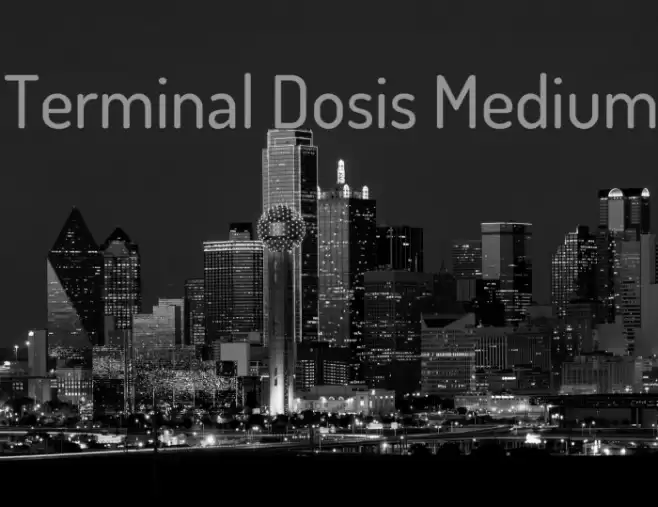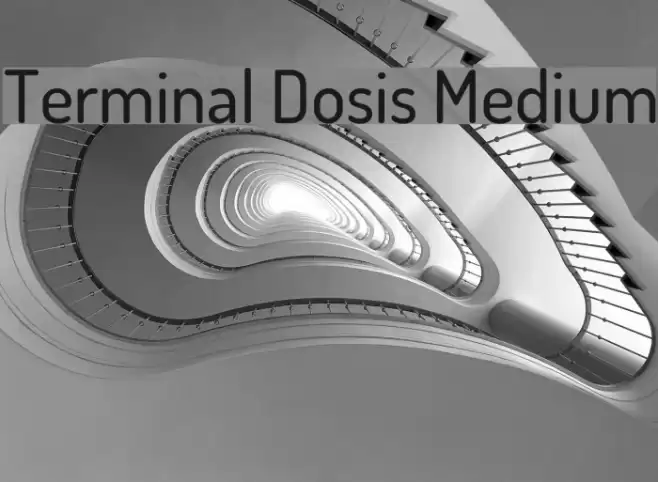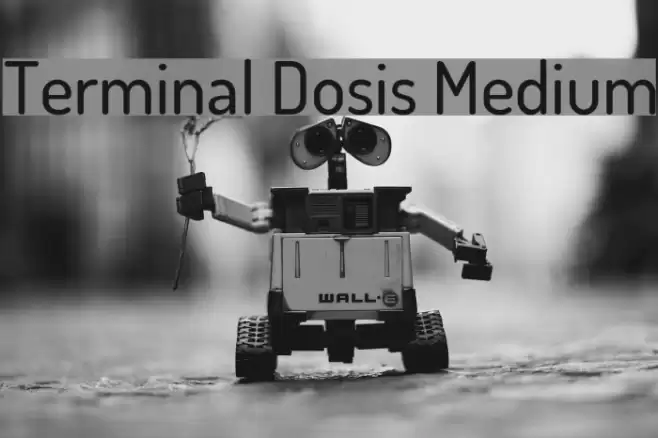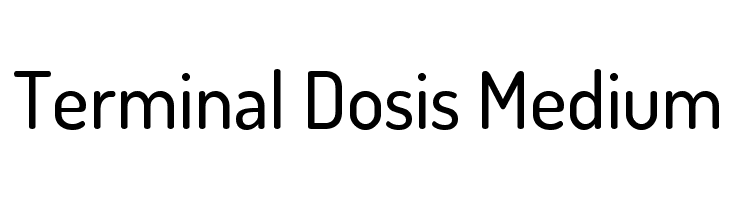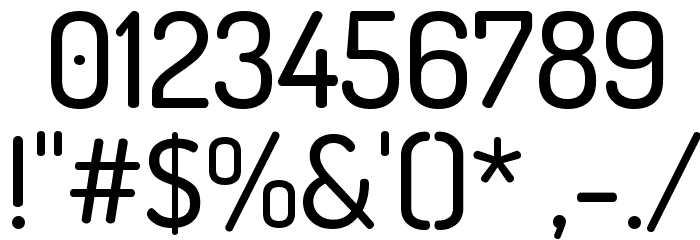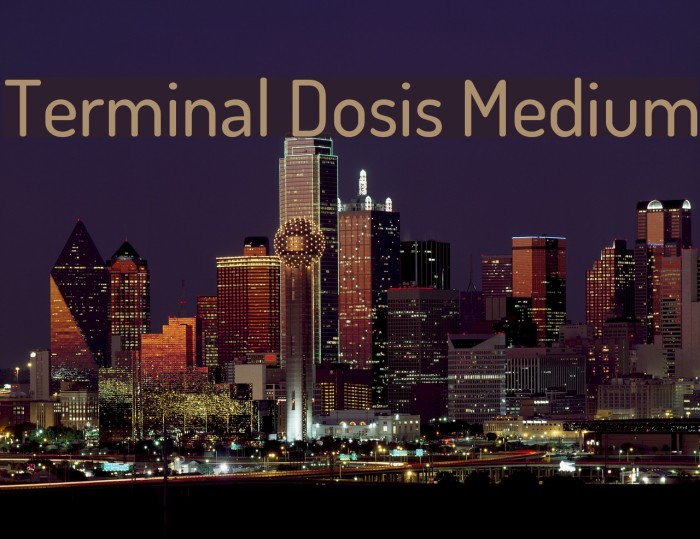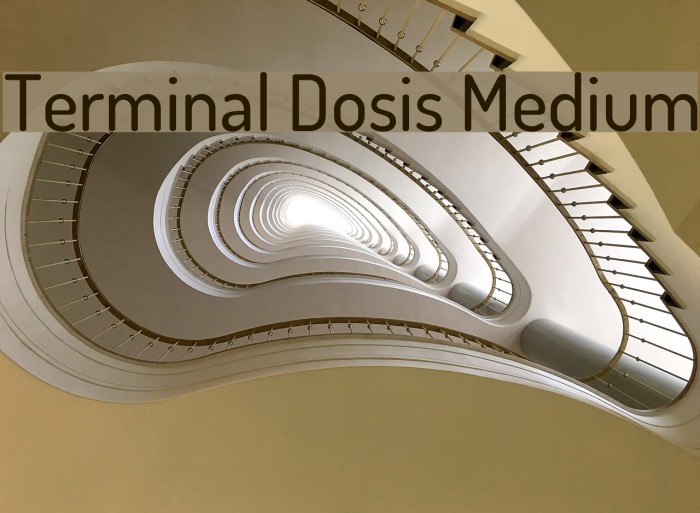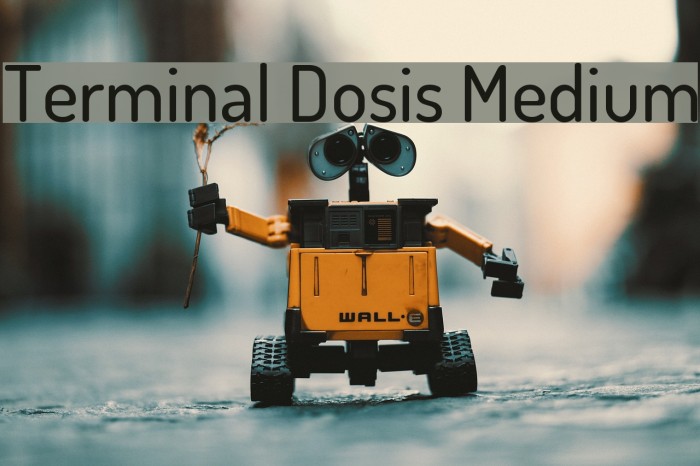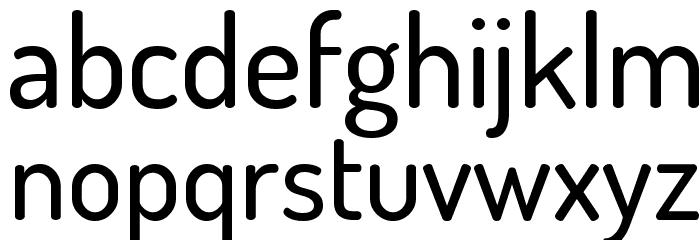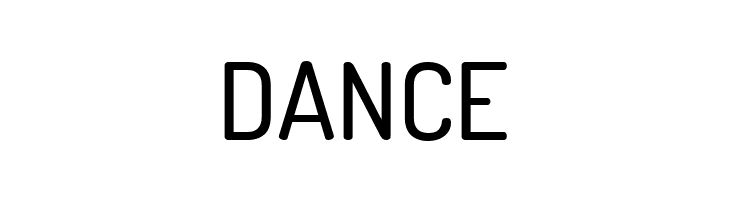
Terminal Dosis Medium
This font features a clean, rounded sans-serif style with a modern and friendly appearance. The characters are evenly spaced with a consistent stroke width, giving it a balanced and harmonious look. The rounded edges soften the overall feel, making it approachable and versatile for various design needs. The font maintains clarity and readability across different sizes, making it suitable for both digital and print media. Its geometric shapes and smooth curves contribute to a contemporary aesthetic, ideal for projects that require a fresh and inviting tone.
A modern, rounded sans-serif font with a clean and friendly appearance.
- Proposed Projects: Ideal for branding, web design, user interfaces, and advertising materials.